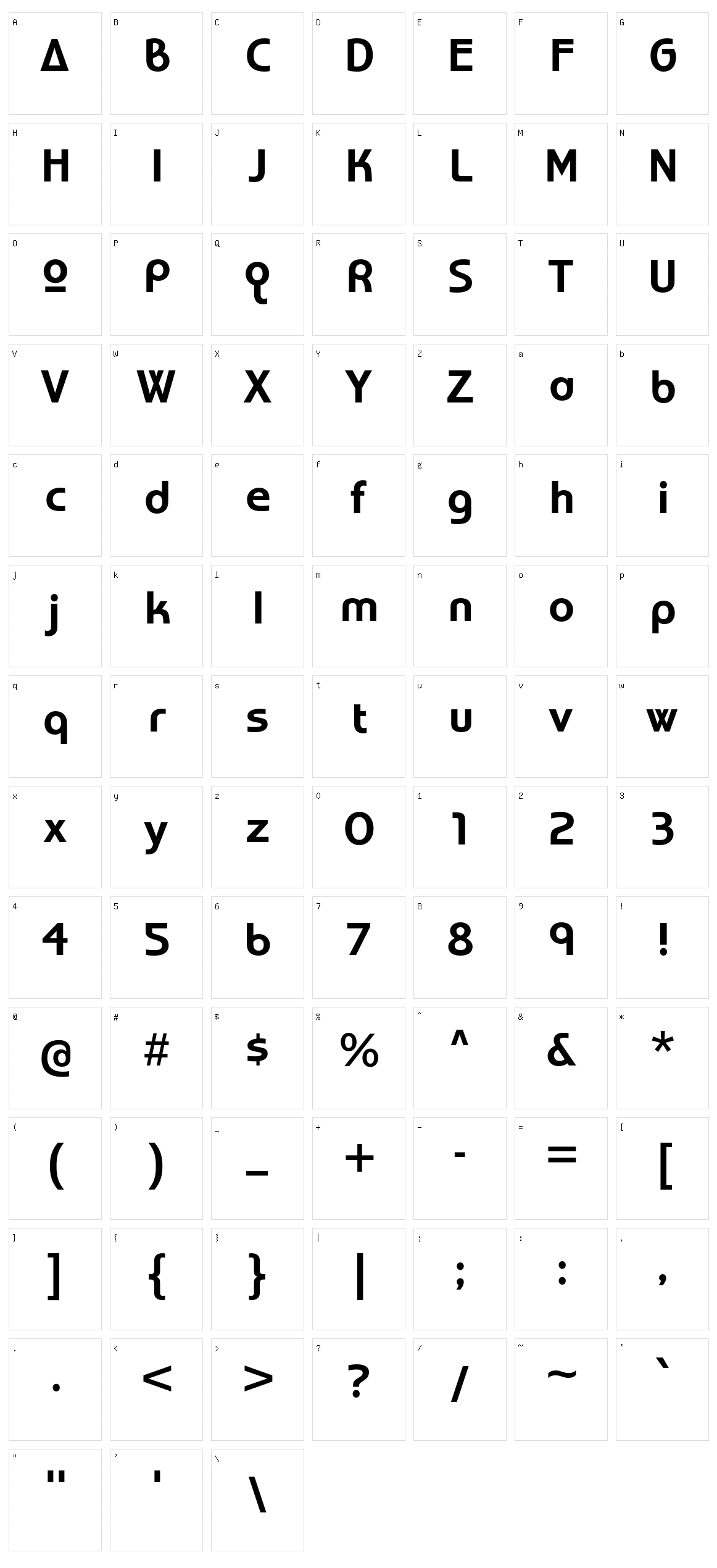
The free font World of Water is carefully designed by Typodermic Fonts, showcasing a thoughtful balance of creativity and usability and falls under the Sans serif font style. When you download the ZIP file, it contains only 22.6 KB of font files, making it lightweight and quick to download. Please review the license details below to understand permitted usage and distribution rights. If license information is not available, we recommend using this font for personal projects only or contacting the author directly for commercial usage permissions.